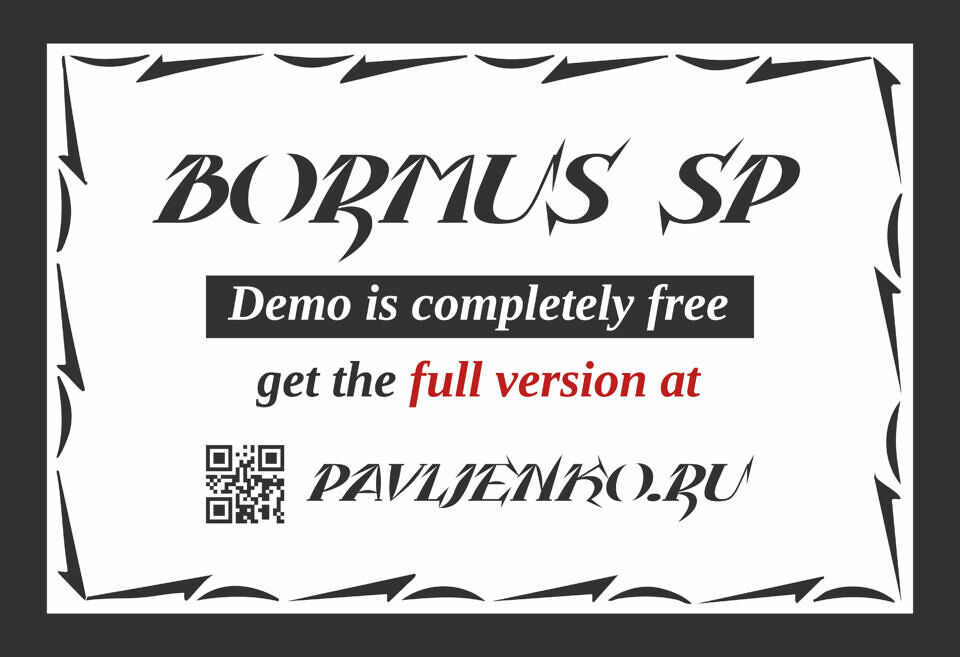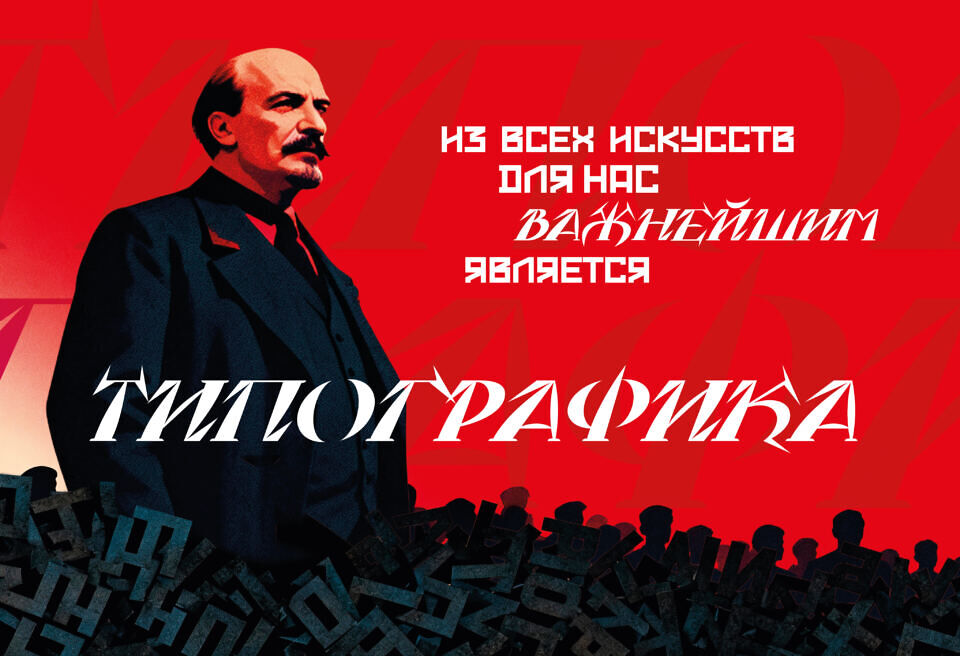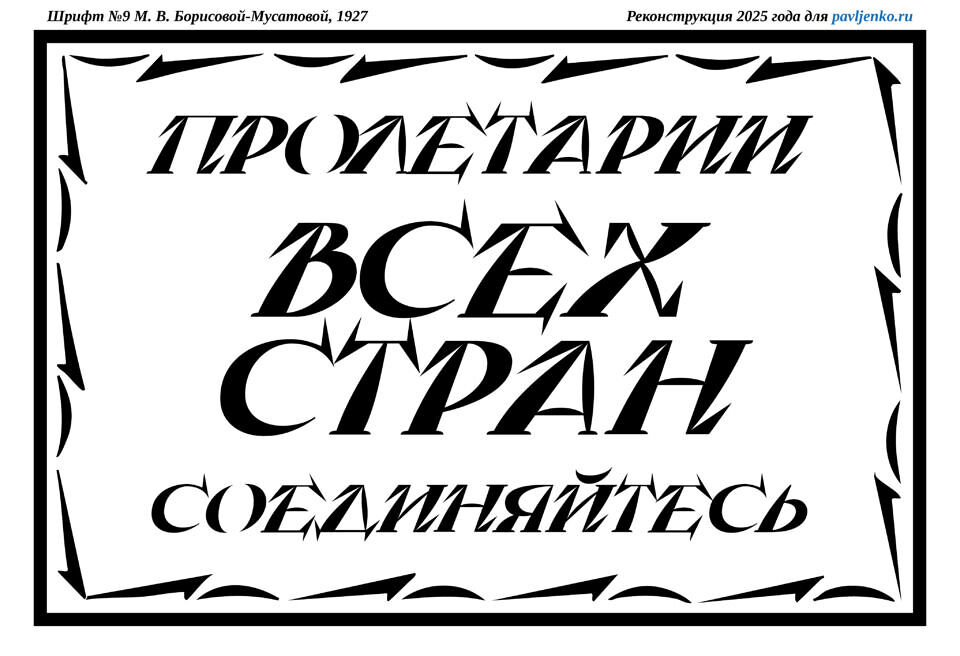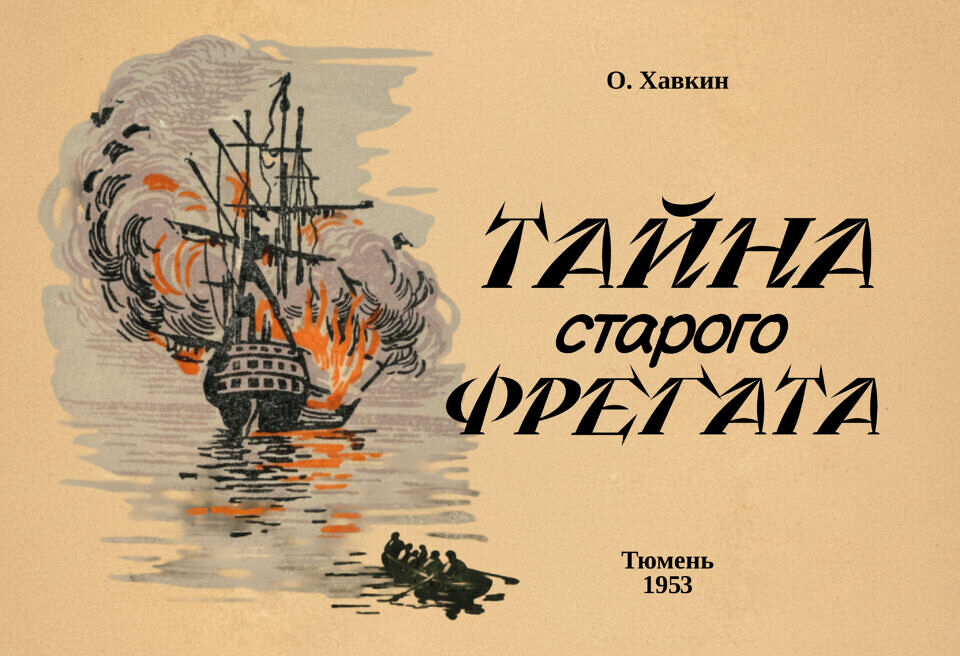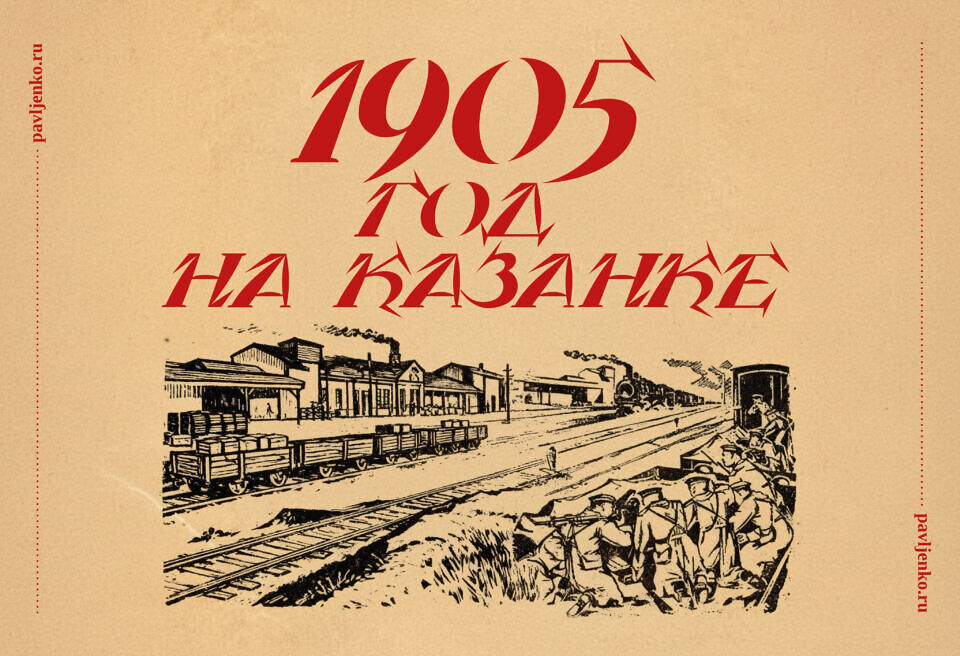
Bormus SP Font
Bormus SP is a display typeface based on a 1927 student project by M. V. Borisova-Musatova. Its design combines a confident slant, high-contrast strokes, and distinctive sharp terminals, creating an expressive and tension-filled silhouette.
With its irregular rhythm, sharp serifs, and diverse forms, this font makes any project appear brighter and “louder.” Bormus SP is ideal for headlines, logos, posters, and any design task requiring a dynamic and stylistically refined aesthetic.